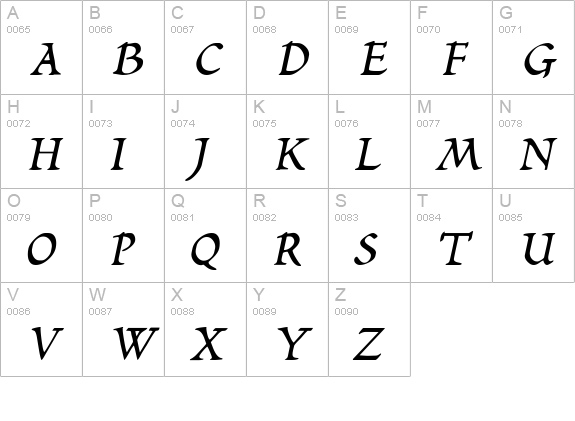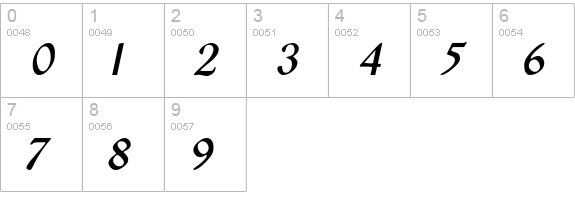
BilboDisplay Bold Italic is a strong, high-contrast, italic variant in the BilboDisplay typeface family \xE2\x80\x94 well suited to headlines, attention-grabbing titles, and strong calls-to-action.
BilboDisplay Bold Italic is a stunning and elegant font that exudes sophistication and charm. With its bold yet flowing strokes, this font is perfect for creating eye-catching headlines, invitations, posters, and more. The combination of boldness and italics adds a touch of drama and flair to any design project. And the best part? BilboDisplay Bold Italic is available for free download at FontsMarket.com! This means you can easily add this beautiful font to your collection without breaking the bank. Don't miss out on the opportunity to elevate your designs with the timeless beauty of BilboDisplay Bold Italic. Download it today and let your creativity soar!